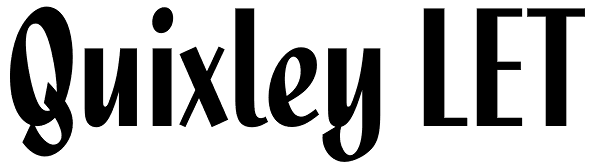
Quixley
Vince Whitlock of the Letraset Type Studio was inspired by an old Zoltan Nagy typeface when he designed this eye-catching, condensed display style. Its unusual angles, thick vertical and thin horizontal strokes lend marvelous visual appeal. Whether...